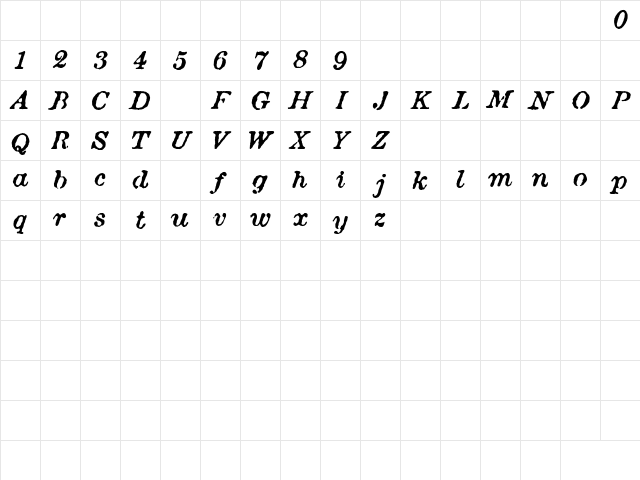
Attic Antique wears its vintage influences proudly, with letterforms that recall mid-century signage, classic packaging, and nostalgia-driven design. The slanted form adds forward momentum and visual energy.
Font Pairing: Combine Attic Antique with a simple slab or neutral sans - period-accurate companions reinforce the vintage feel without competing for attention.
Pro Tip: Lean into Attic Antique's period character by pairing it with aged paper textures, muted colour palettes, and vintage illustration styles.